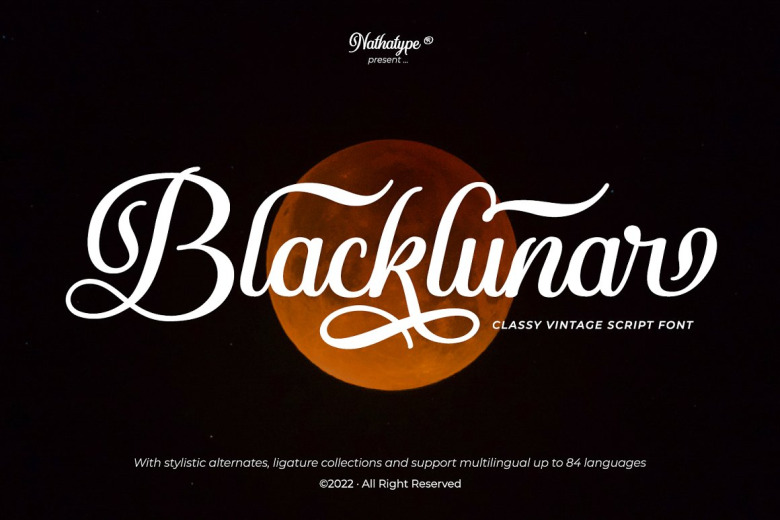
Blacklunar Font
blacklunar is a calligraphy script font designed to impress. A style statement script font for those vintage vibes that turn semi heads around Easy to read and equally good in header and body text.
The design seems to give off a vintage vibe thanks in part to the curvy and unique strokes at some specific characters. Not only that but this font has some amazing stuff which will make you design even beautiful. So Stay connected and find something new.
Blacklunar Calligraphy Script Font